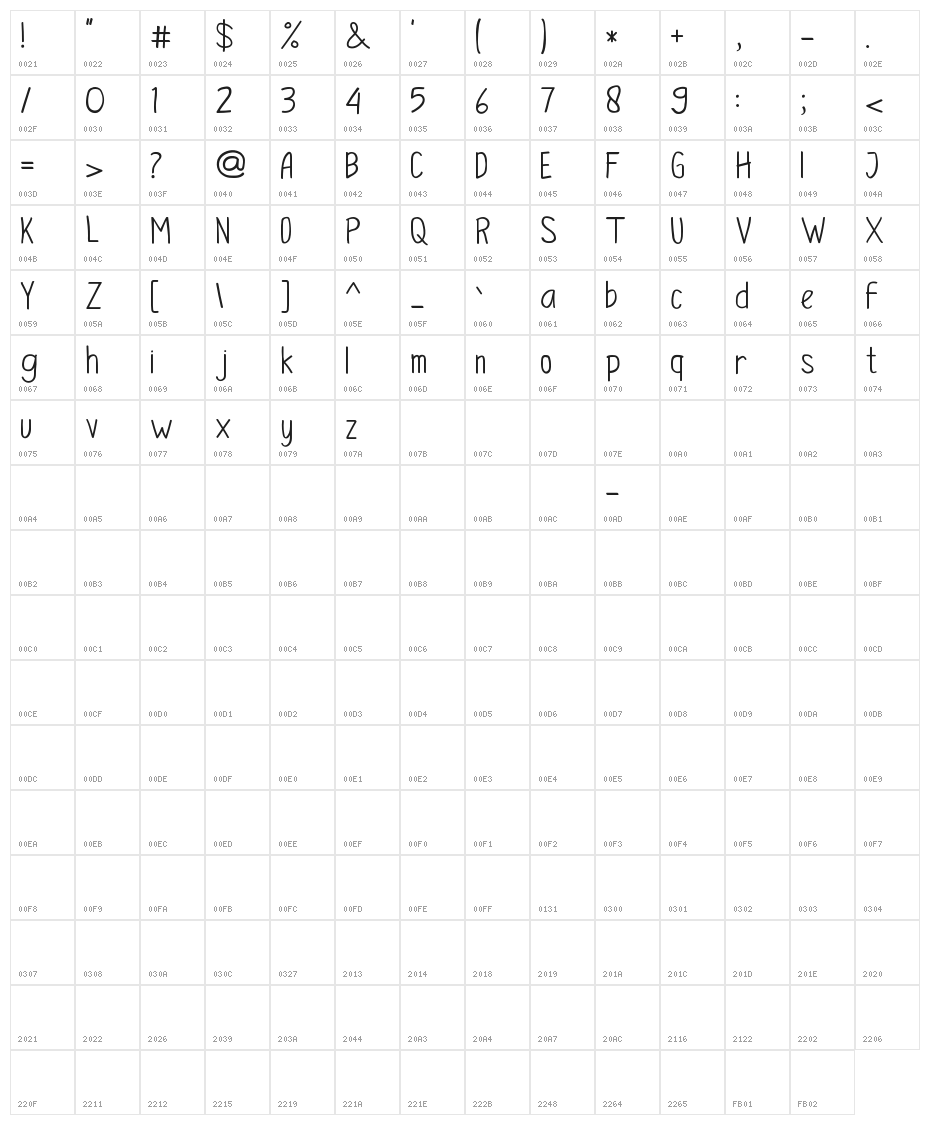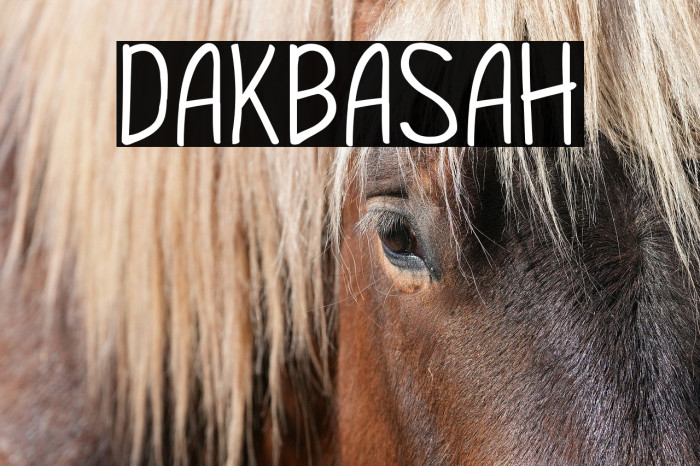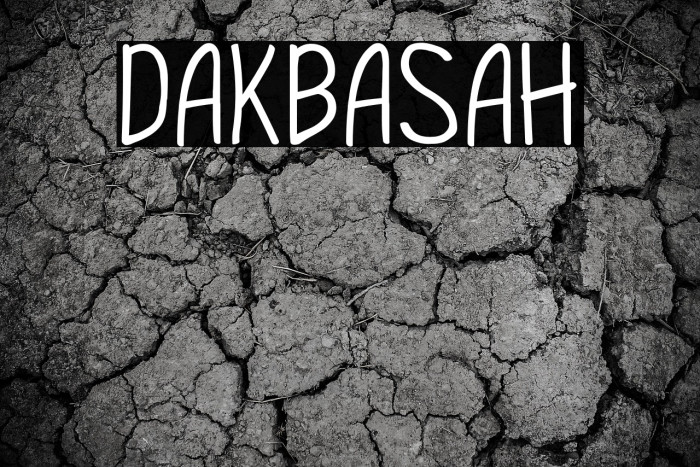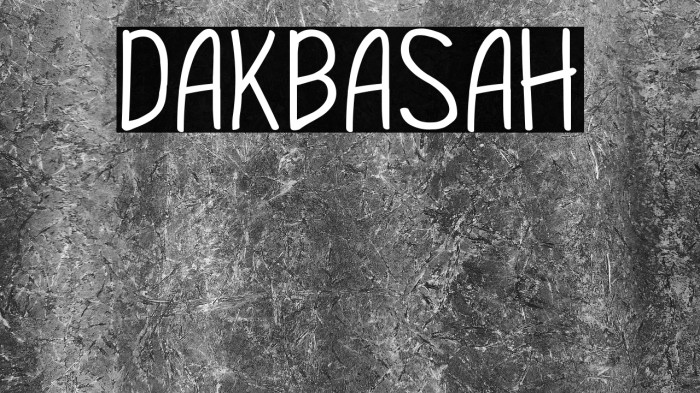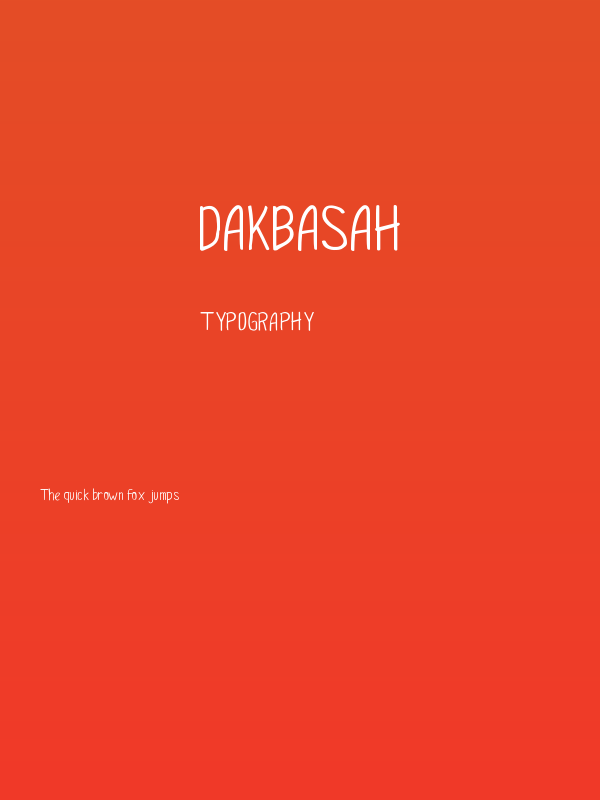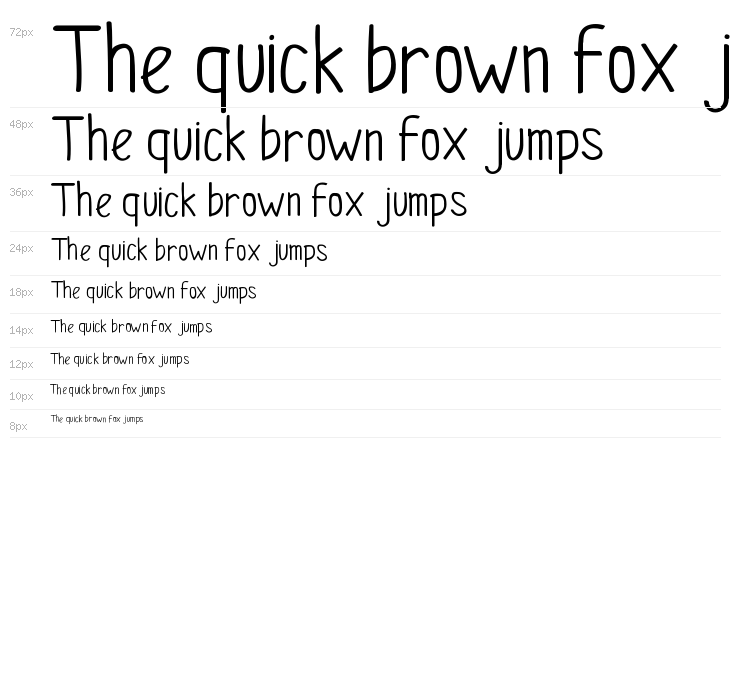
DAKBASAH Font
DAKBASAH Description
This font features a playful and casual handwritten style, characterized by its tall, narrow letters with rounded edges. The uppercase and lowercase letters maintain a consistent flow, giving a cohesive look. The numbers and special characters follow the same style, ensuring uniformity across all glyphs. The strokes are smooth and slightly irregular, adding a personal touch that mimics natural handwriting. This font is ideal for projects that require a friendly and approachable aesthetic, such as children's books, personal blogs, or informal invitations.
| Width | Condensed |
| Overall Style | Casual |
| Use Case | Headlines, Logos, Informal Text |
| Proposed Projects | Ideal for children's books, personal blogs, informal invitations, and playful branding. |